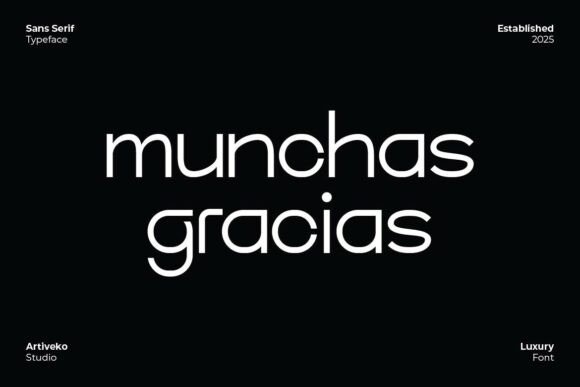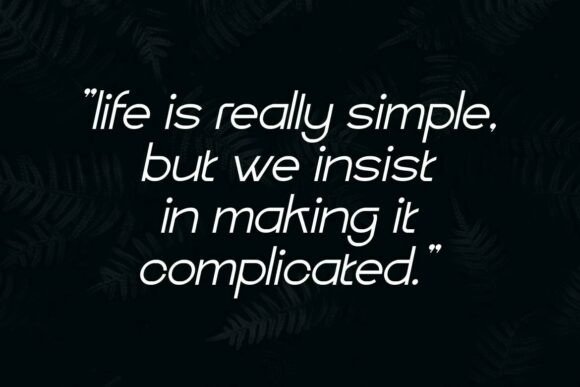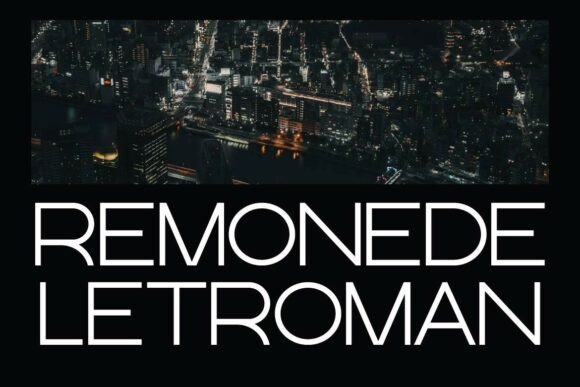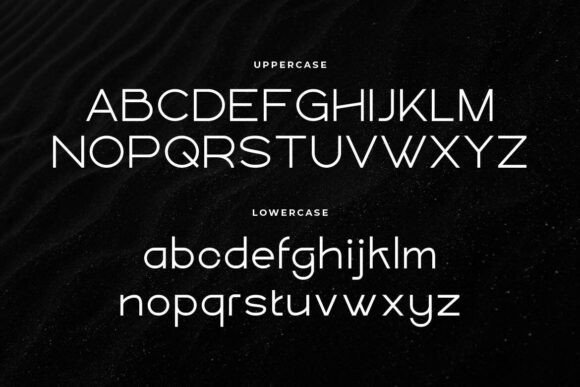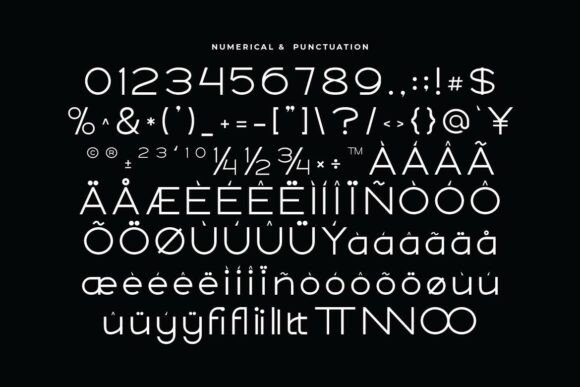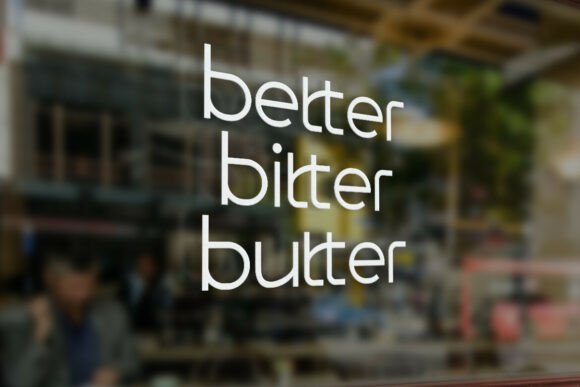
Introducing Guorta Font: The Epitome of Modern Elegance
In the realm of typography, fonts play a pivotal role in conveying messages, evoking emotions, and creating lasting impressions. Among the myriad of fonts available, Guorta stands out as a beacon of modern sophistication, offering a unique blend of simplicity, balance, and contemporary elegance. This article delves into the characteristics, applications, and benefits of using Guorta font in various design projects.
The Essence of Guorta Font
Guorta is a clean and refined sans-serif font, meticulously crafted to embody the principles of modern design. Its smooth curves, precise geometry, and minimalist letterforms contribute to its distinctive appearance, making it an ideal choice for designers seeking a fresh and timeless aesthetic. The font’s design ensures excellent legibility across various mediums, from digital screens to print materials.
Key Features of Guorta Font
- Simplicity: Guorta’s design is rooted in simplicity, ensuring that the font remains versatile and adaptable to different contexts.
- Balance: The font achieves a perfect balance between form and function, making it suitable for a wide range of applications.
- Contemporary Elegance: Guorta exudes a sense of modern sophistication, making it perfect for projects that demand a current and stylish look.
- Smooth Curves and Precise Geometry: The font’s smooth curves and precise geometric lines contribute to its clean and refined appearance.
- Minimalist Letterforms: Guorta’s minimalist approach to letterform design ensures clarity and legibility, even at smaller sizes.
Applications of Guorta Font
Guorta’s versatility makes it suitable for a variety of design projects, including:
- Branding: Use Guorta to create a strong and modern brand identity that communicates simplicity and elegance.
- Editorial Layouts: The font’s excellent legibility makes it perfect for editorial layouts, such as magazines, newspapers, and blogs.
- Website Headers: Guorta’s clean and refined appearance makes it an excellent choice for website headers, adding a touch of sophistication to any website.
- Product Packaging: The font’s modern aesthetic makes it suitable for product packaging, helping to create a stylish and contemporary look.
- Social Media Graphics: Guorta can be used to create engaging social media graphics that stand out in crowded feeds.
Benefits of Using Guorta Font
The benefits of using Guorta font in design projects are numerous:
- Timeless Aesthetic: Guorta’s design ensures that projects remain stylish and relevant for years to come.
- Versatility: The font’s adaptability makes it suitable for a wide range of applications and mediums.
- Legibility: Guorta’s excellent legibility ensures that messages are communicated clearly and effectively.
- Emotional Connection: The font’s modern elegance can help create an emotional connection with the target audience.
Guorta font is a powerful tool for designers and crafters seeking to create modern, elegant, and timeless designs. Its unique blend of simplicity, balance, and contemporary elegance makes it an excellent choice for a wide range of applications. By incorporating Guorta into design projects, designers can create visually stunning and effective communications that resonate with their audience.